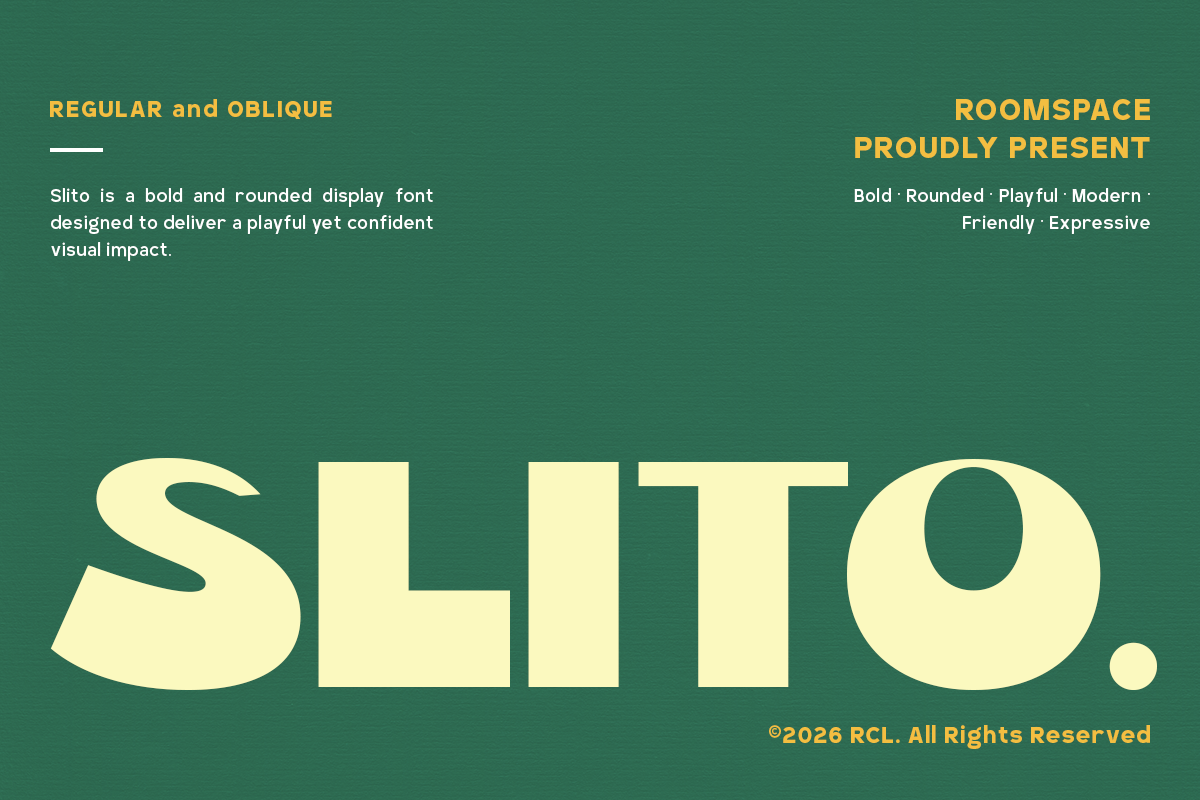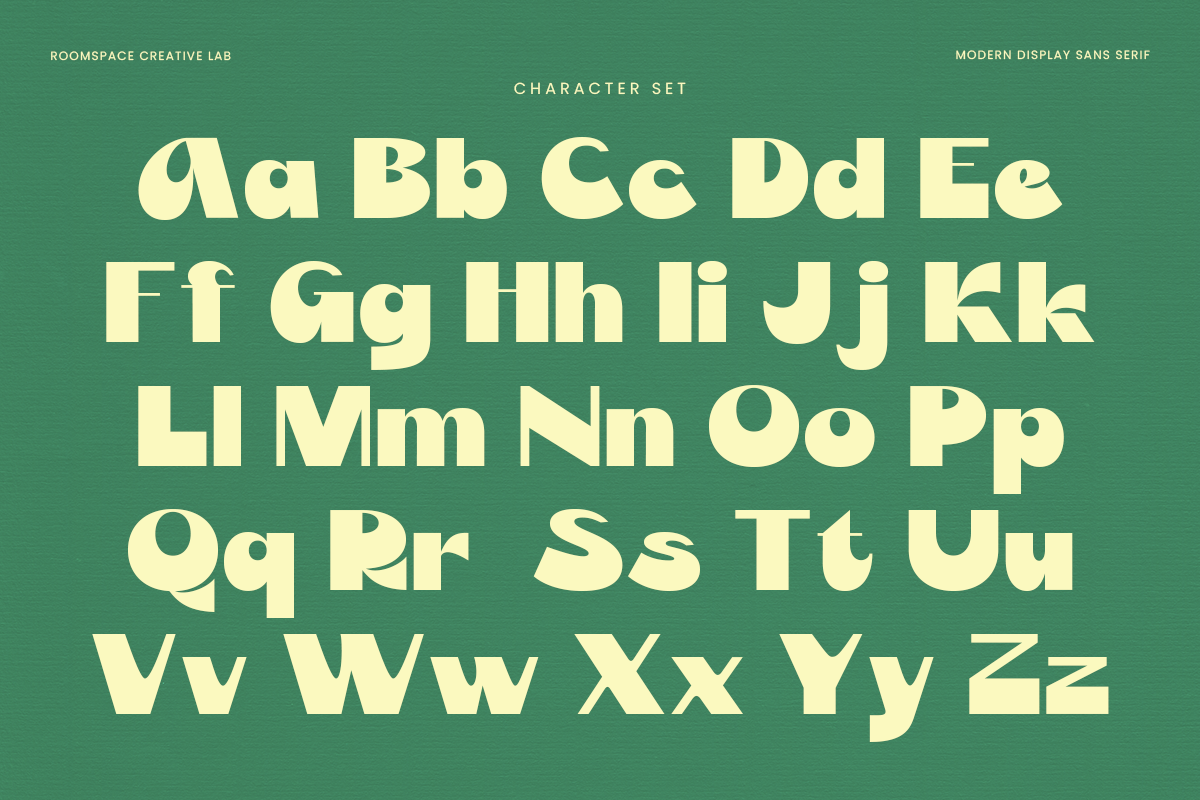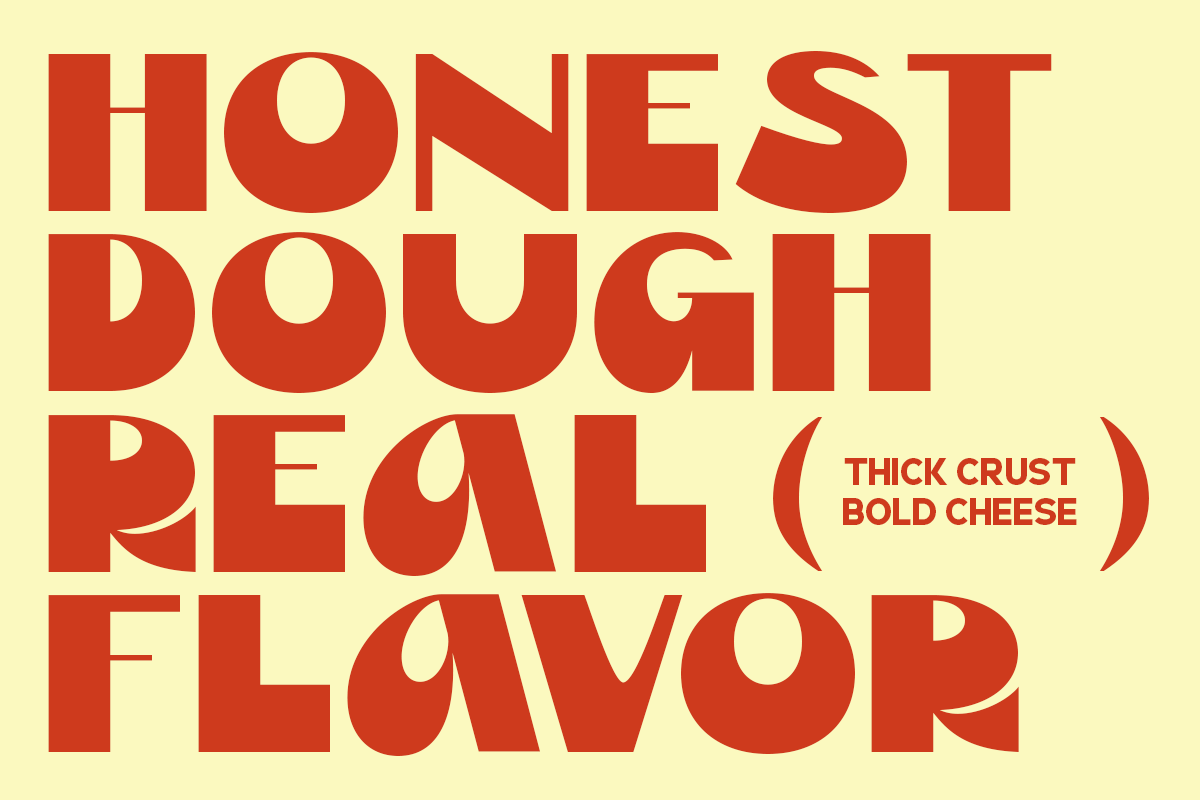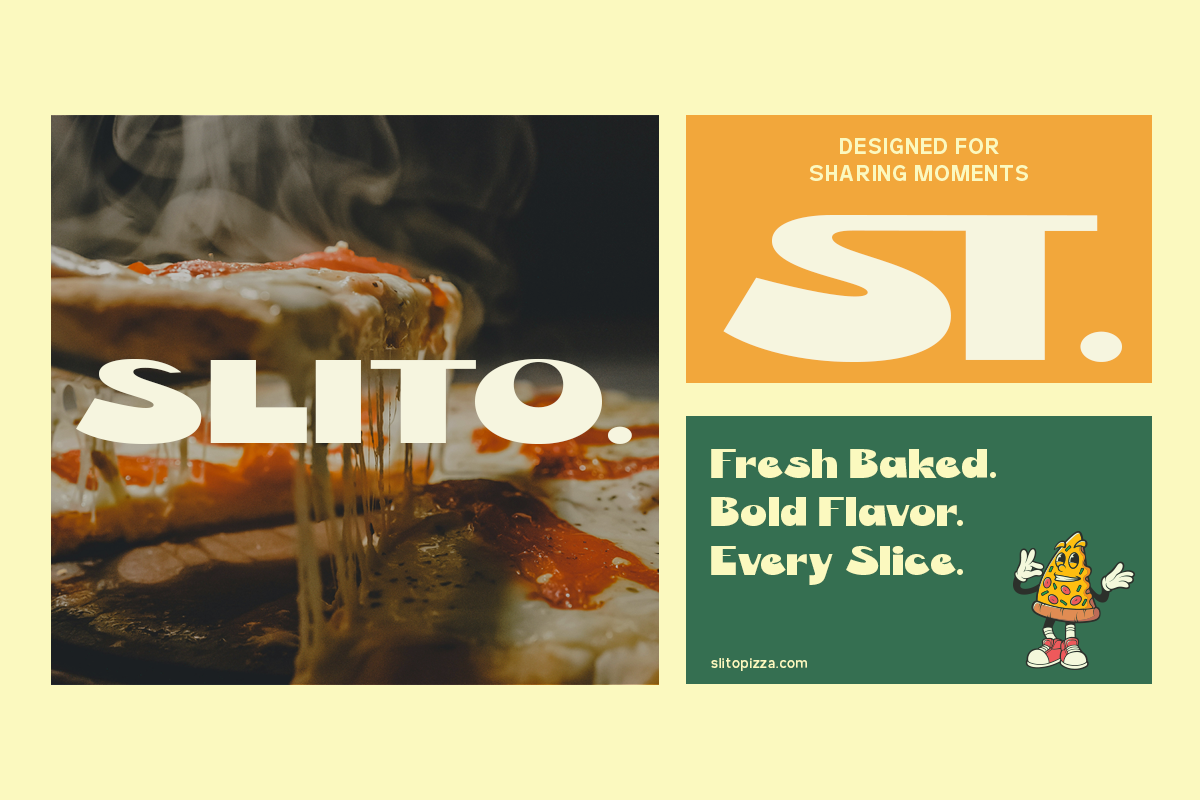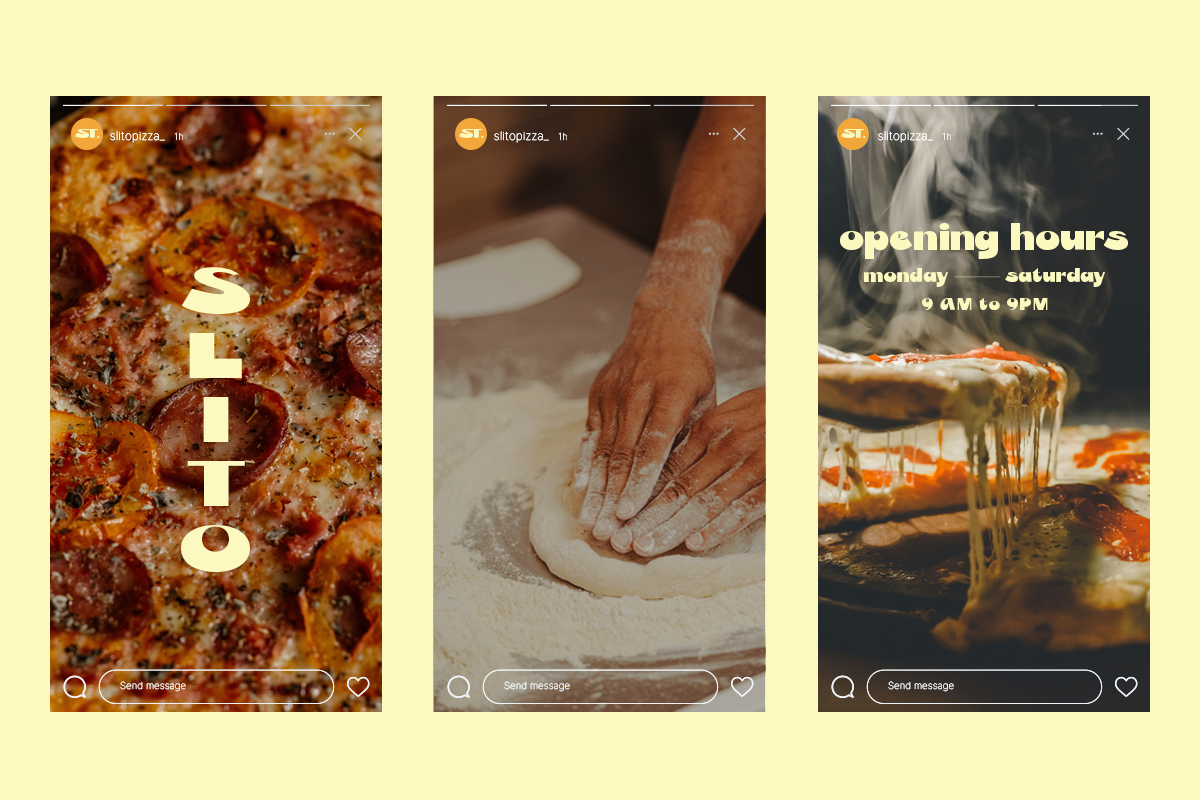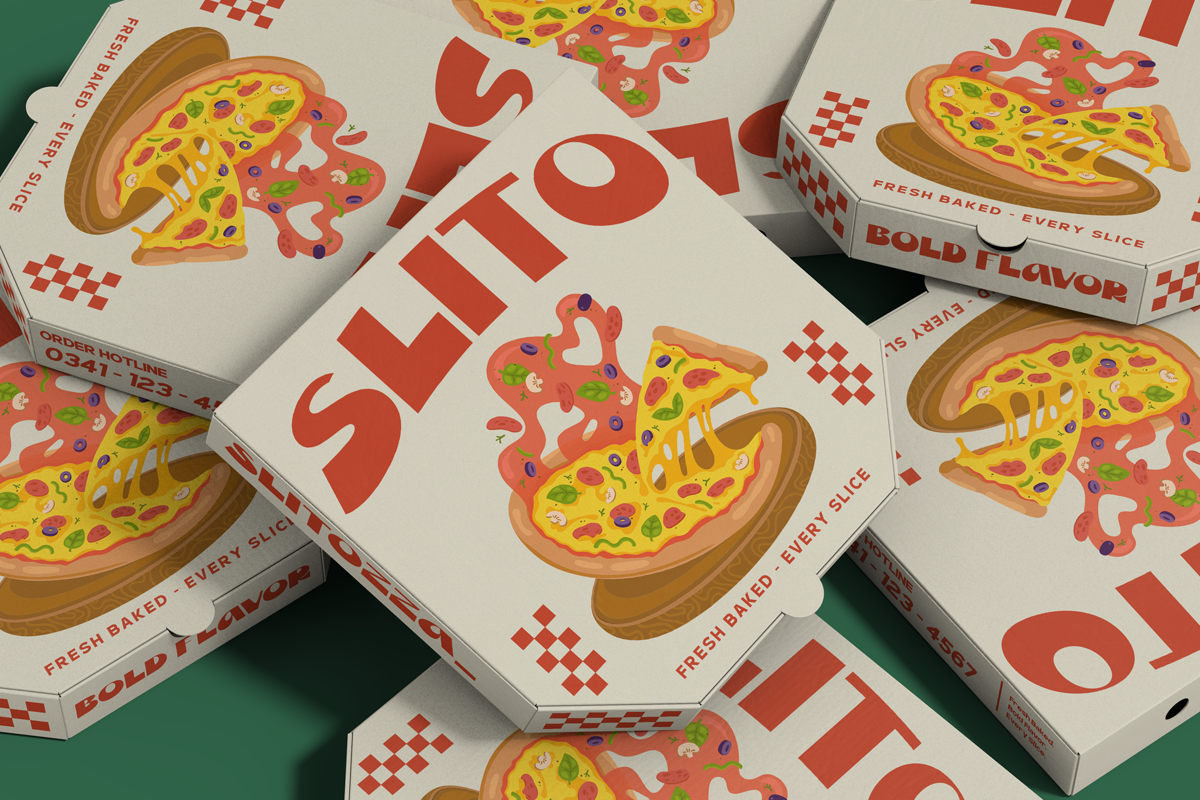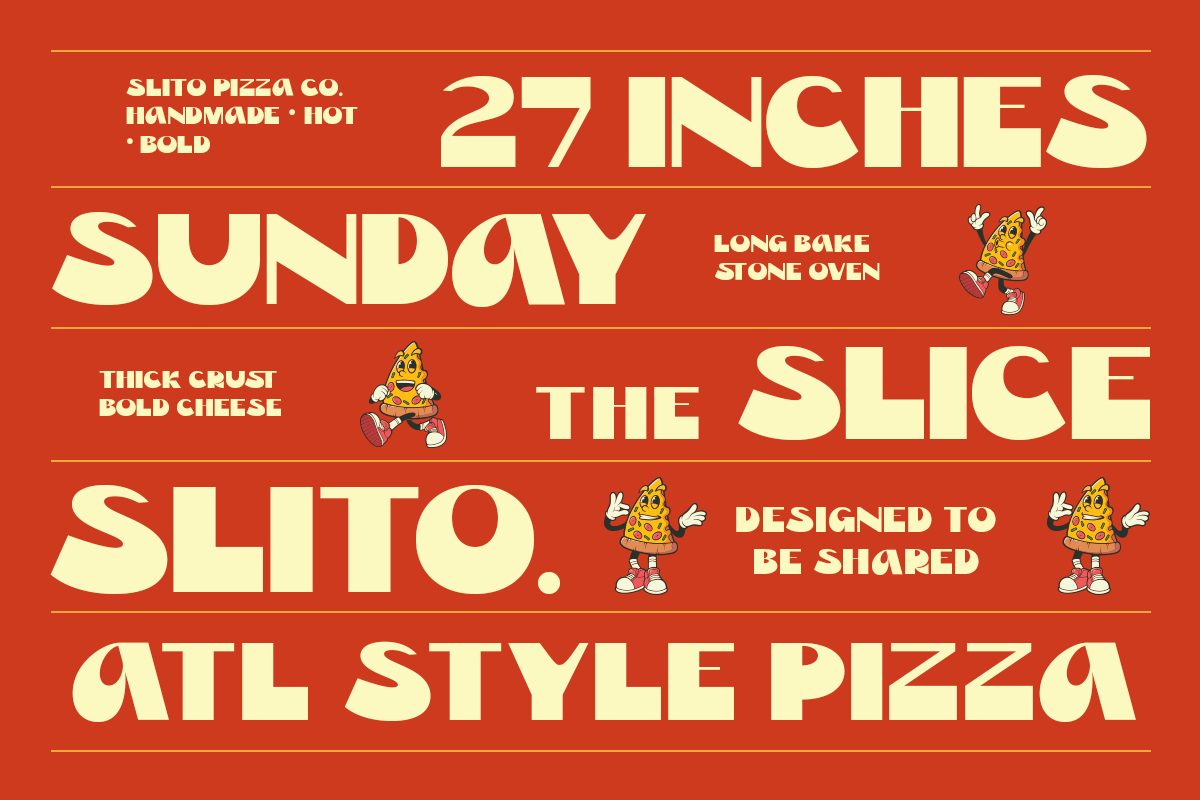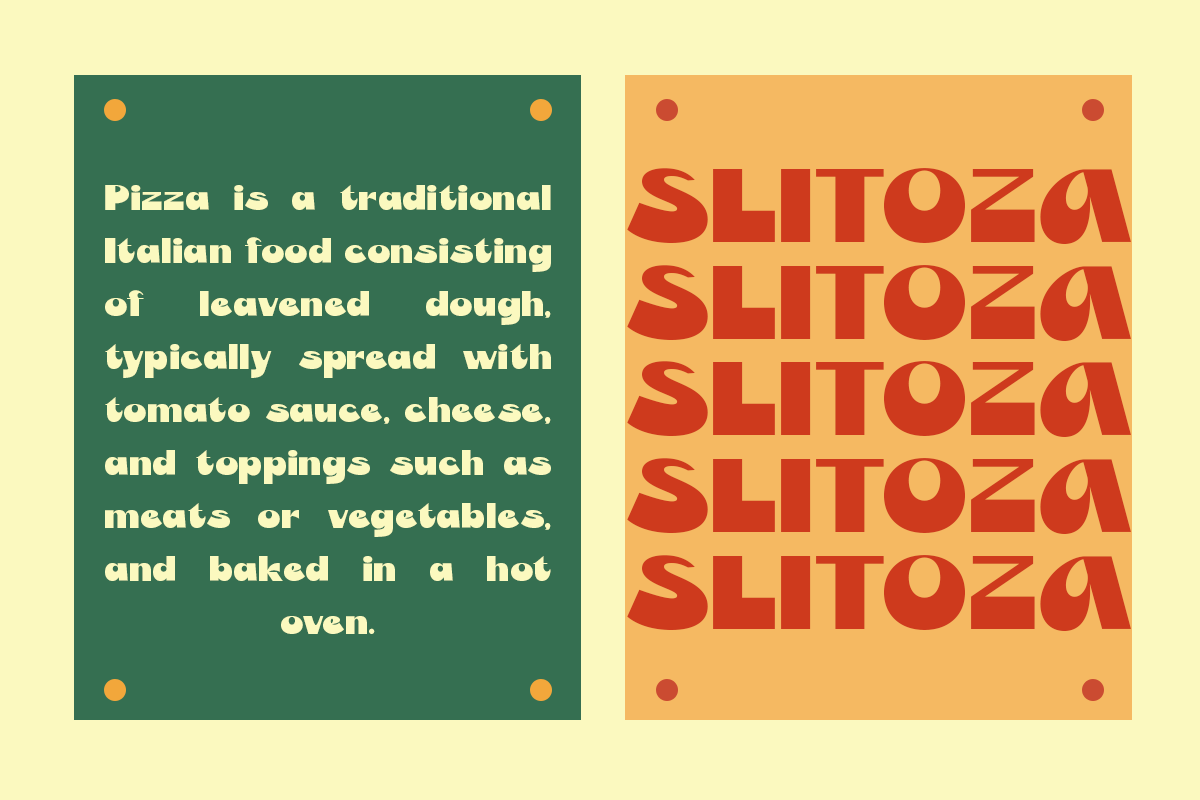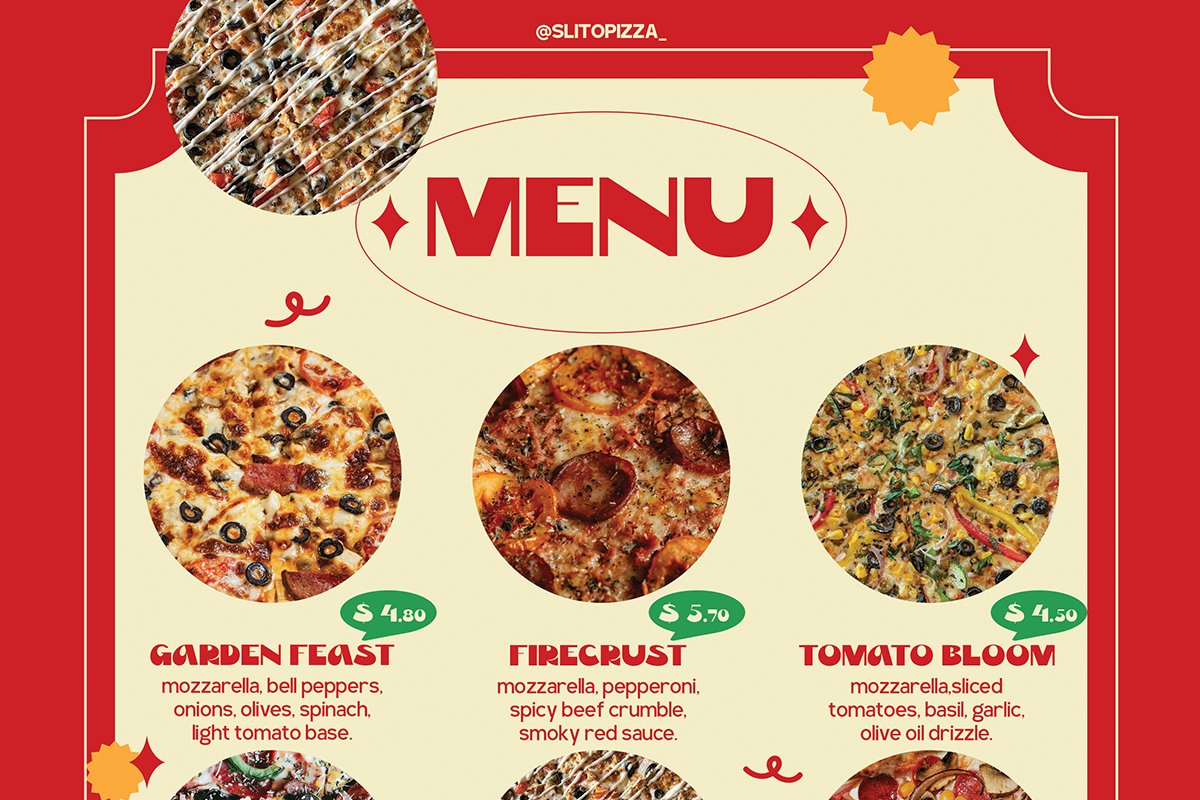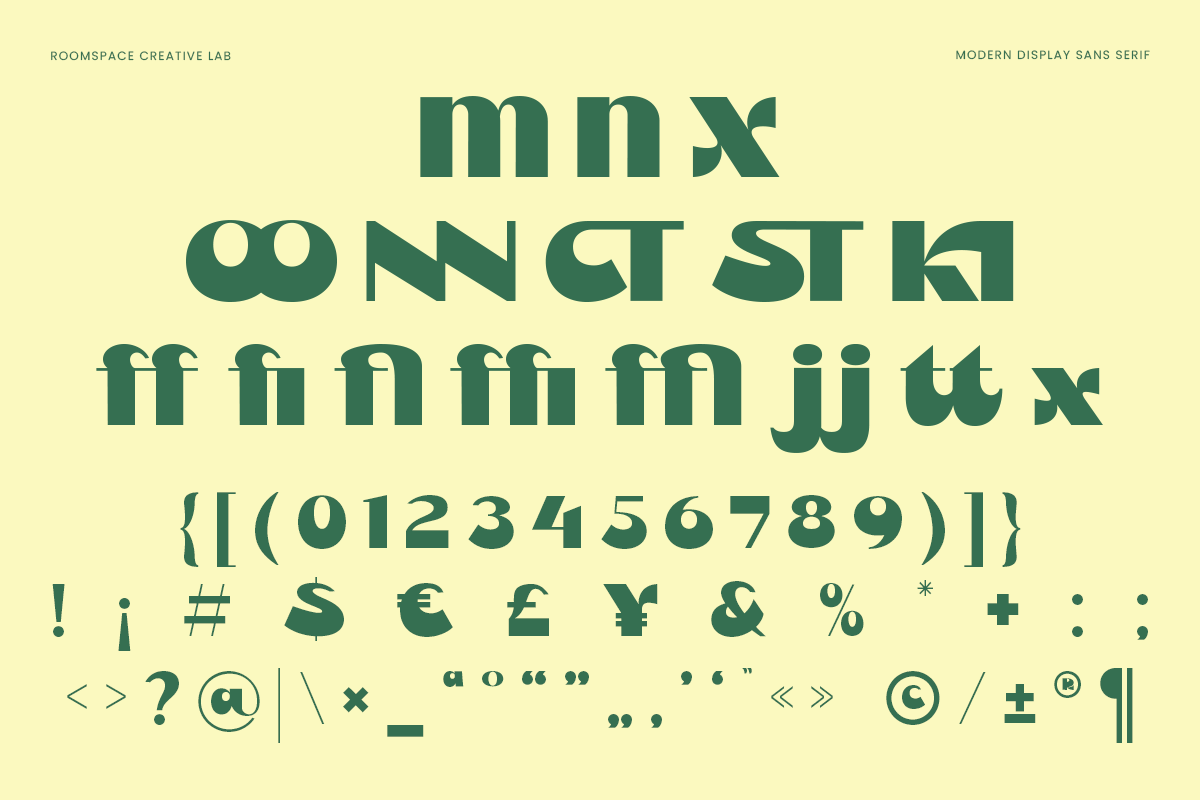
Slito is a bold rounded display font designed to deliver a playful yet confident visual impact. Featuring soft curves, wide shapes, and expressive letterforms,..Slito brings a friendly modern tone to any creative project. With Regular and Oblique styles included, this font is perfect for branding, packaging, posters, logos, social media graphics, and eye-catching headlines. Slito is built for designs that need personality, clarity, and strong presence.